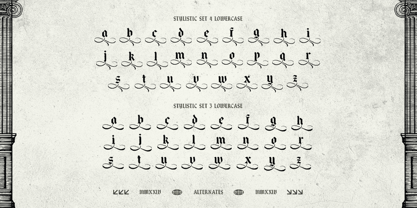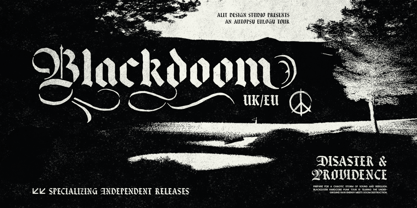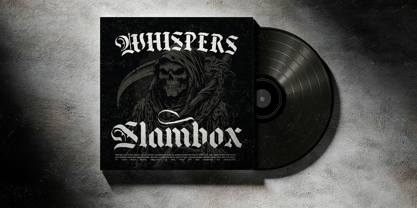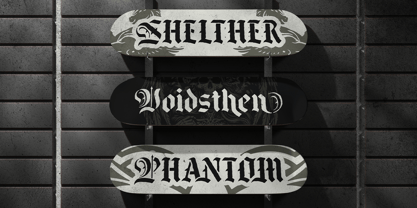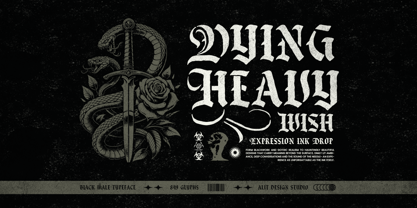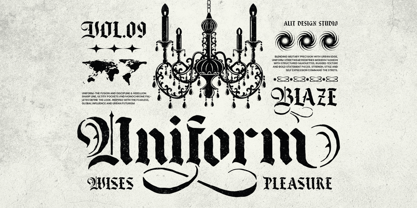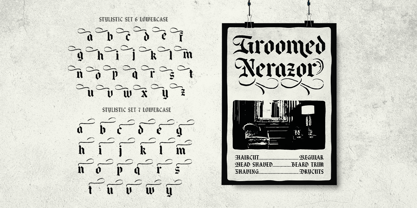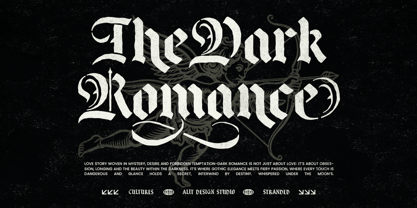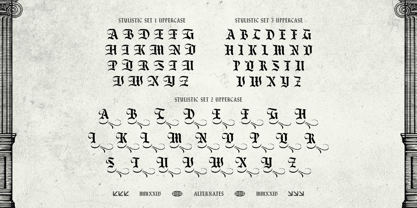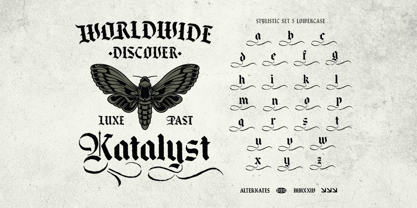
Black Male
The Black Male Font Family was designed by Alit Suarnegara and published by Alit Design. Black Male contains 1 styles. More about this family
Balck Male – Blackletter Stencil Typeface
A Bold Fusion of Gothic Elegance and Industrial Precision
Balck Male is a meticulously designed blackletter stencil typeface, crafted to bring the perfect balance between historical calligraphy and modern industrial aesthetics. With a rich character set of 849 glyphs, this font provides extensive typographic options, including alternates, swashes, and ligatures for maximum design flexibility.
The stencil aspect is carefully engineered to ensure that every cut remains structurally sound, making it an ideal choice for screen printing, engraving, laser cutting, vinyl lettering, and more. Whether used for branding, posters, apparel, tattoos, or medieval-inspired artwork, Balck Male delivers a timeless yet edgy visual impact.
Key Features:
✔ Blackletter Stencil Design – A modern adaptation of classic Gothic typography, enhanced with stencil-friendly elements.
✔ 849 Glyphs – Extensive character set covering uppercase, lowercase, numerals, punctuation, and special symbols.
✔ Alternates & Ligatures – A variety of stylistic alternates and ligatures for unique text customization.
✔ Swashes & Decorative Elements – Adds artistic flourishes for enhanced elegance.
✔ Precision Stencil Cuts – Designed for seamless cutting without breaking or difficulty in application.
✔ Versatile Usage – Suitable for branding, packaging, posters, apparel, tattoo designs, signage, and gothic-themed visuals.
✔ Multilingual Support – Covers multiple languages with full diacritic compatibility.
Perfect For:
🔹 Gothic & Vintage Designs – Ideal for medieval, fantasy, and old-world aesthetics.
🔹 Streetwear & Apparel – A bold typeface that makes an impact in fashion and branding.
🔹 Tattoo & Artistic Designs – A perfect fit for intricate, edgy artwork.
🔹 Signage & Cut-out Applications – Specially designed to work flawlessly with stencil cutting and engraving.
🔹 Metal & Wood Engraving – Precision-designed for crafting, printing, and laser applications.
Why Choose Balck Male?
If you're looking for a typeface that commands attention, blends heritage with modernity, and is built for stencil-based applications, Balck Male is the ultimate choice. Its robust letterforms and thoughtful stencil cuts ensure that whether you're printing, engraving, or designing digital graphics, every letter stands strong.
⚔️ Unleash the power of Gothic stencil typography with Balck Male! ⚔️